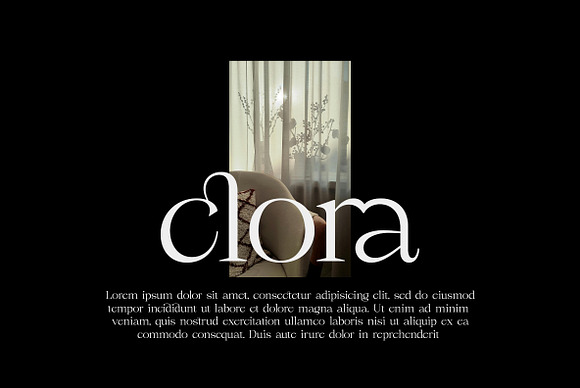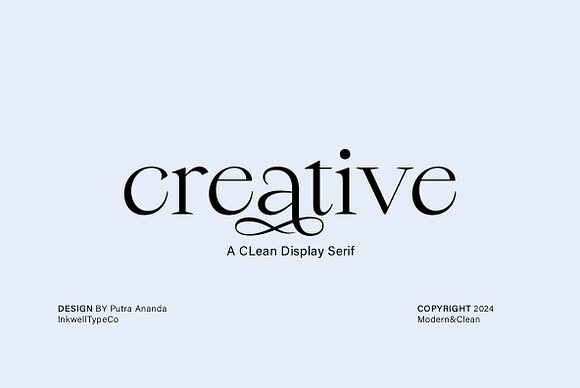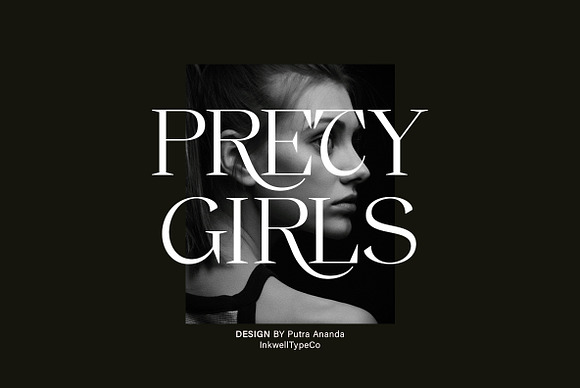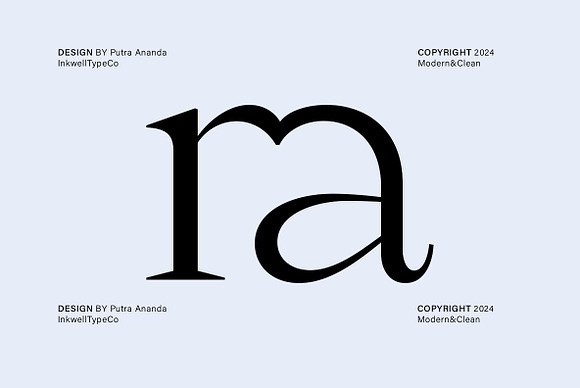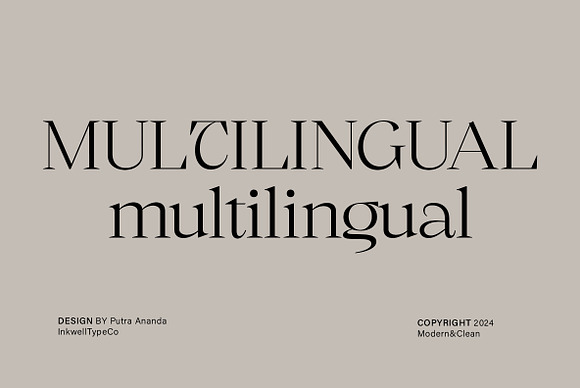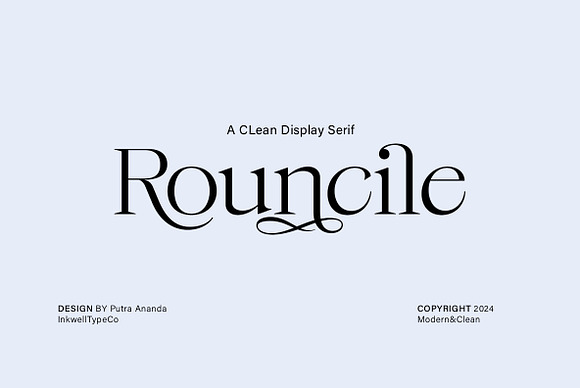
Rouncile - Clean Display Serif Font
Rounclie has an elegant appearance with sleek and neat serif letters. The characters are tall with sharp lines and smooth curves, giving a classic and formal impression. Each letter appears proportional and symmetrical, with balanced spacing between the characters. This font is well-suited for designs that require a luxurious feel, such as invitations, quotes, or headlines. What you get : Rounclie Regular Features : Uppercase and lowercase characters Numerals and Punctuation (OpenType Standard) Accents (Supports Multilingual Characters) PUA Encoding